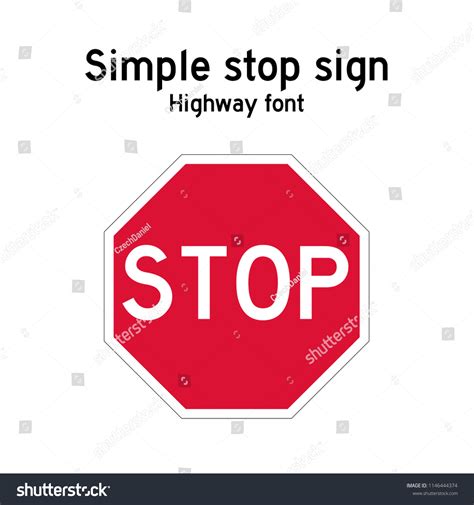
Stop Sign Font? forum
Highway gothic narrow (here on dafont}. Web overpass is a free, open source typeface designed by delve fonts. Web looking for stop signs fonts? Every font is free to download! Road sign d (you don't want this one. The design of overpass is an interpretation of the well. Web traffic 02 (here on dafont}. Click to find the best 5 free fonts in the stop signs style.
The design of overpass is an interpretation of the well. Highway gothic narrow (here on dafont}. Web looking for stop signs fonts? Web overpass is a free, open source typeface designed by delve fonts. The design of overpass is an interpretation of the well. Click to find the best 5 free fonts in the stop signs style. Every font is free to download! Web traffic 02 (here on dafont}. Road sign d (you don't want this one.